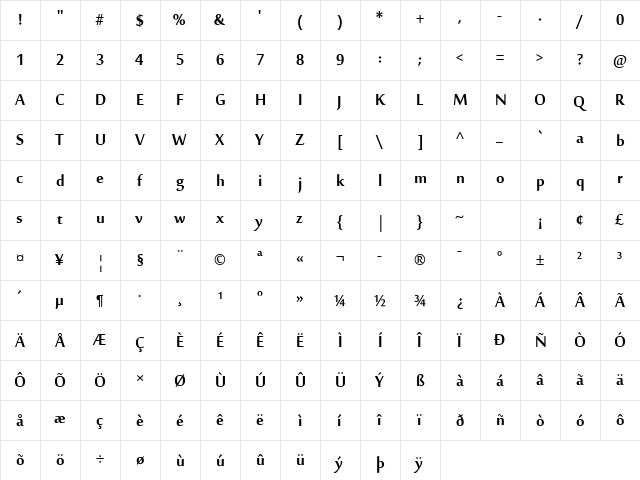
MoolBoran Regular
| Foundry | Microsoft Corporation |
| Designer | Om Mony |
Design Context for MoolBoran Typeface
MoolBoran is a composed and adaptable typeface that performs quietly and consistently across a wide range of design contexts.